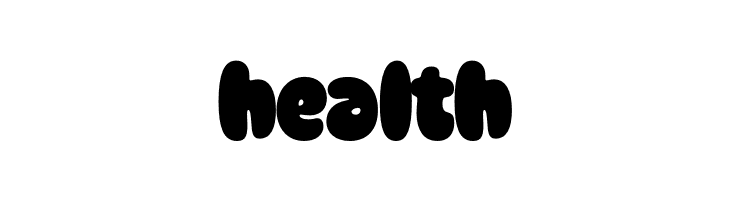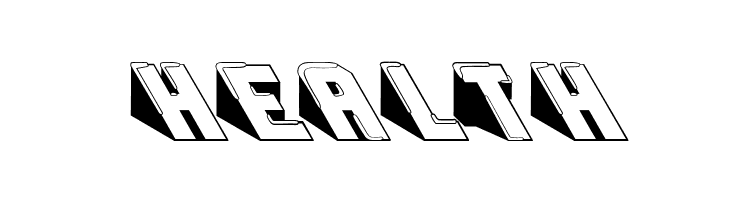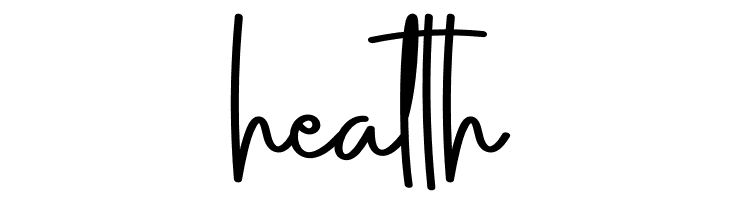
A playful, cursive-like font with flowing uppercase and smooth lowercase letters.
A playful, whimsical font with tall uppercase and bold, rounded lowercase letters.
A playful, bold font with rounded, bubble-like characters.
A bold, 3D font with a shadow effect, perfect for impactful designs.
A bold, decorative font with a dotted pattern and rounded characters.
A playful, hand-drawn font with tall, narrow letters and a whimsical style.
A playful, bold font with chunky, rounded letters and a whimsical design.
A playful and bold font with rounded, whimsical characters.
A bold, playful handwritten font with rounded edges and thick strokes.
A playful, handwritten font with a whimsical and friendly style.